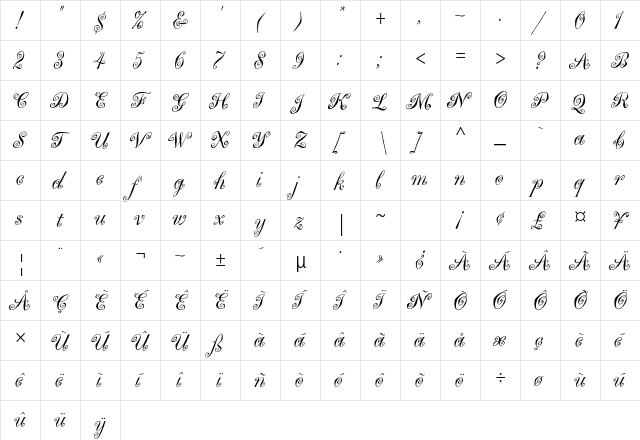
Marguerita Std Regular
| Designer | David Quay |
Design Context for Marguerita Std Typeface
Marguerita Std is a composed and adaptable typeface that performs quietly and consistently across a wide range of design contexts.